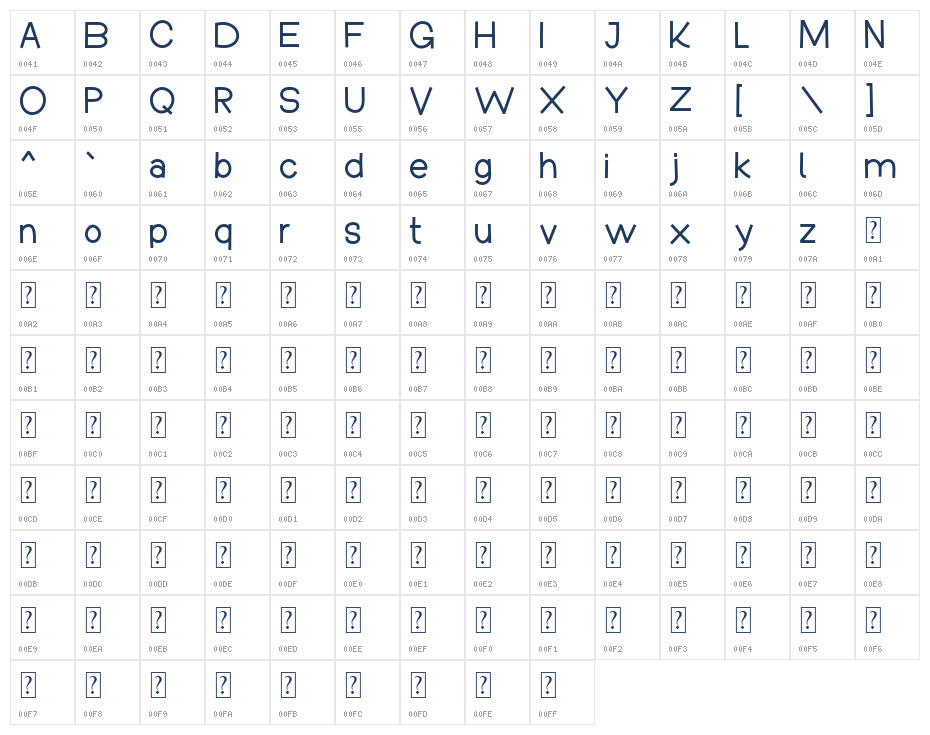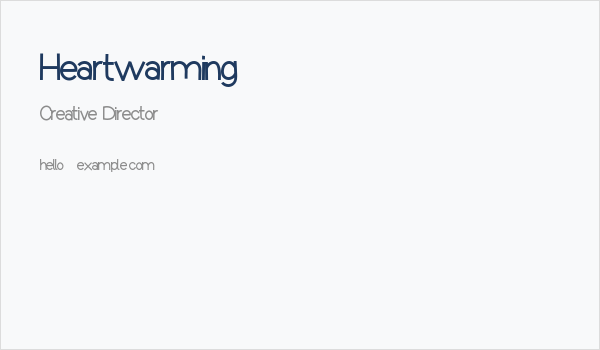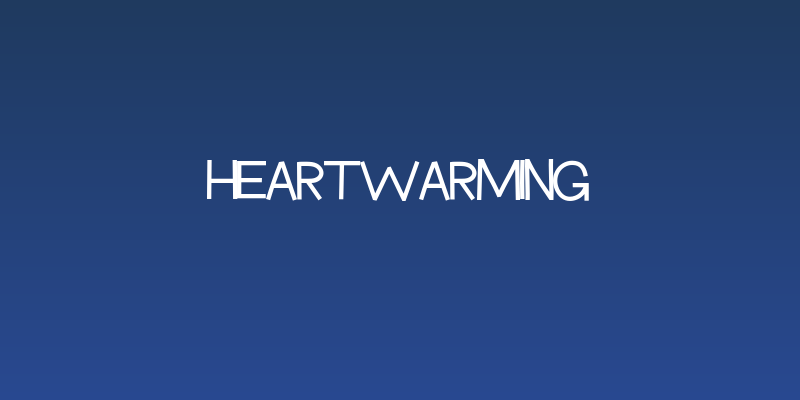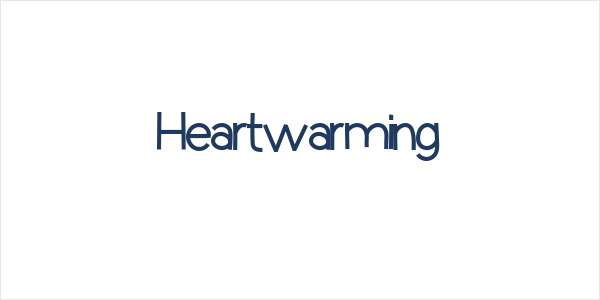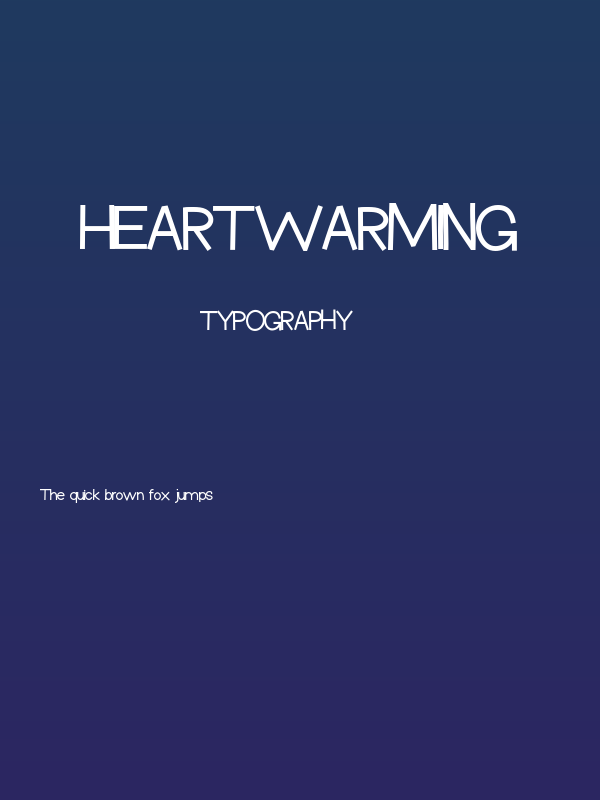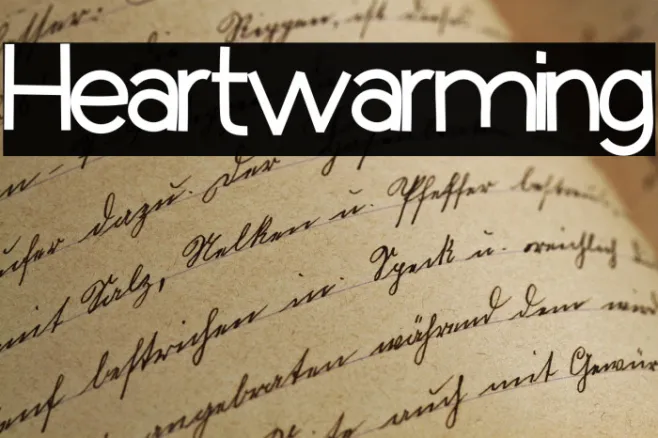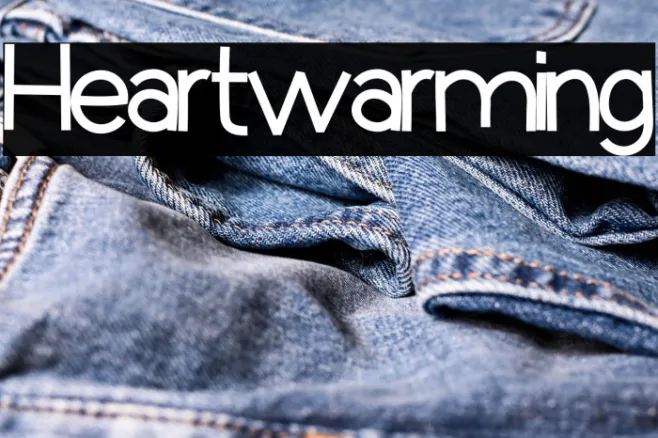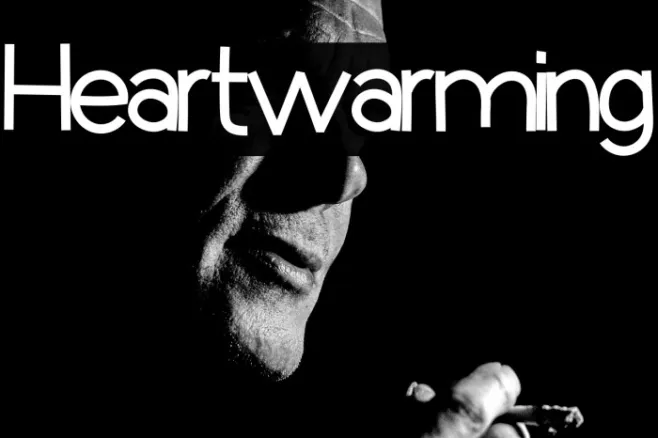
Heartwarming Font
Heartwarming Description
A modern, geometric sans-serif font with a slightly playful and informal style. The characters are clean, with consistent stroke widths and a slight tilt, giving it a dynamic appearance.
| Overall Style | Modern, Geometric, Playful |
| Use Case | Headlines, Logos, Digital media |